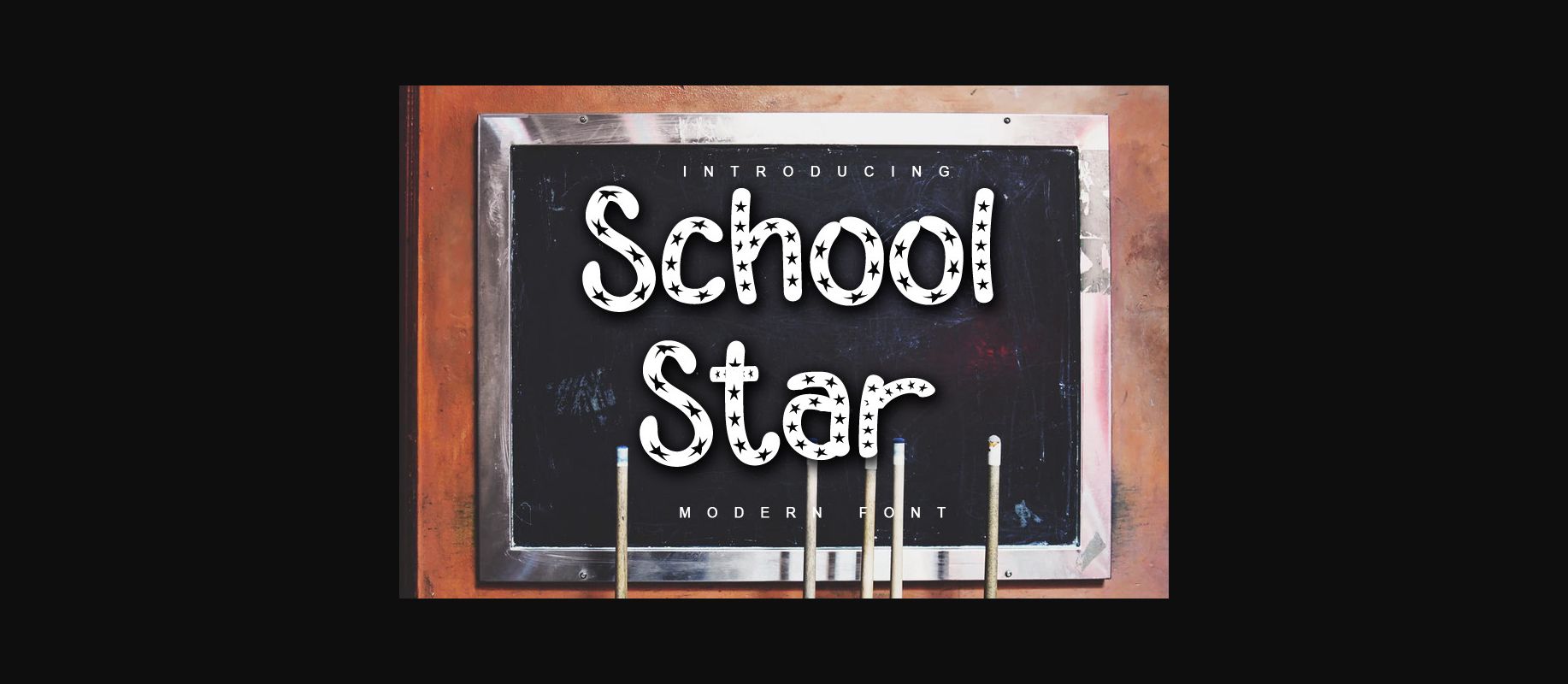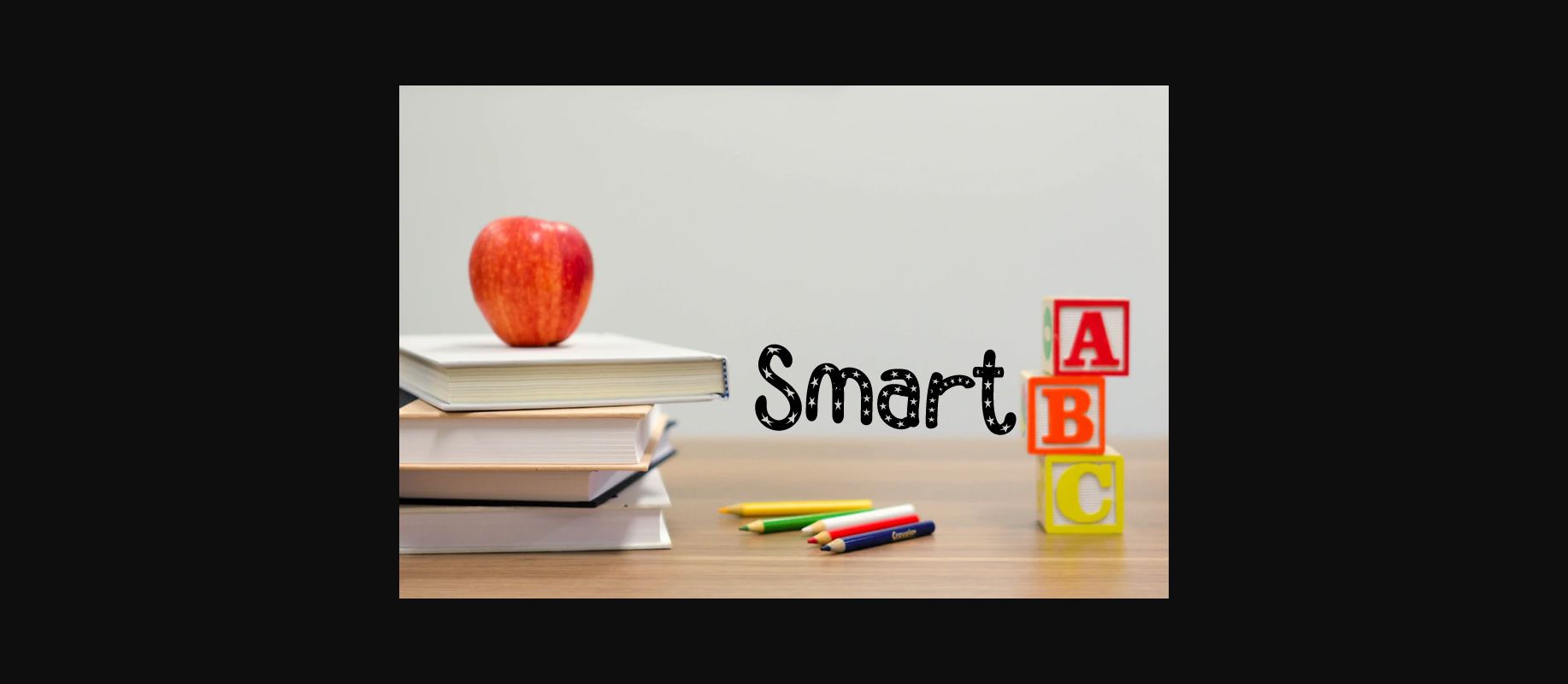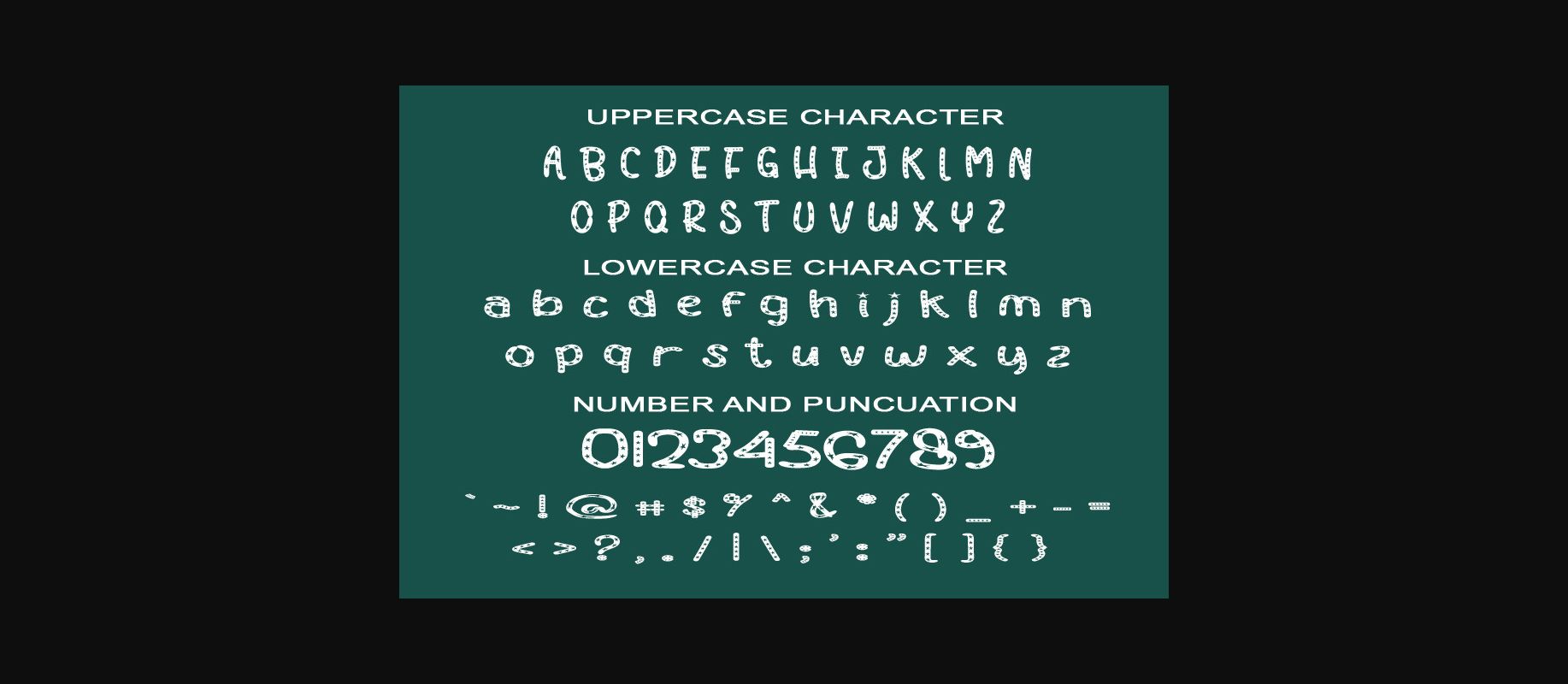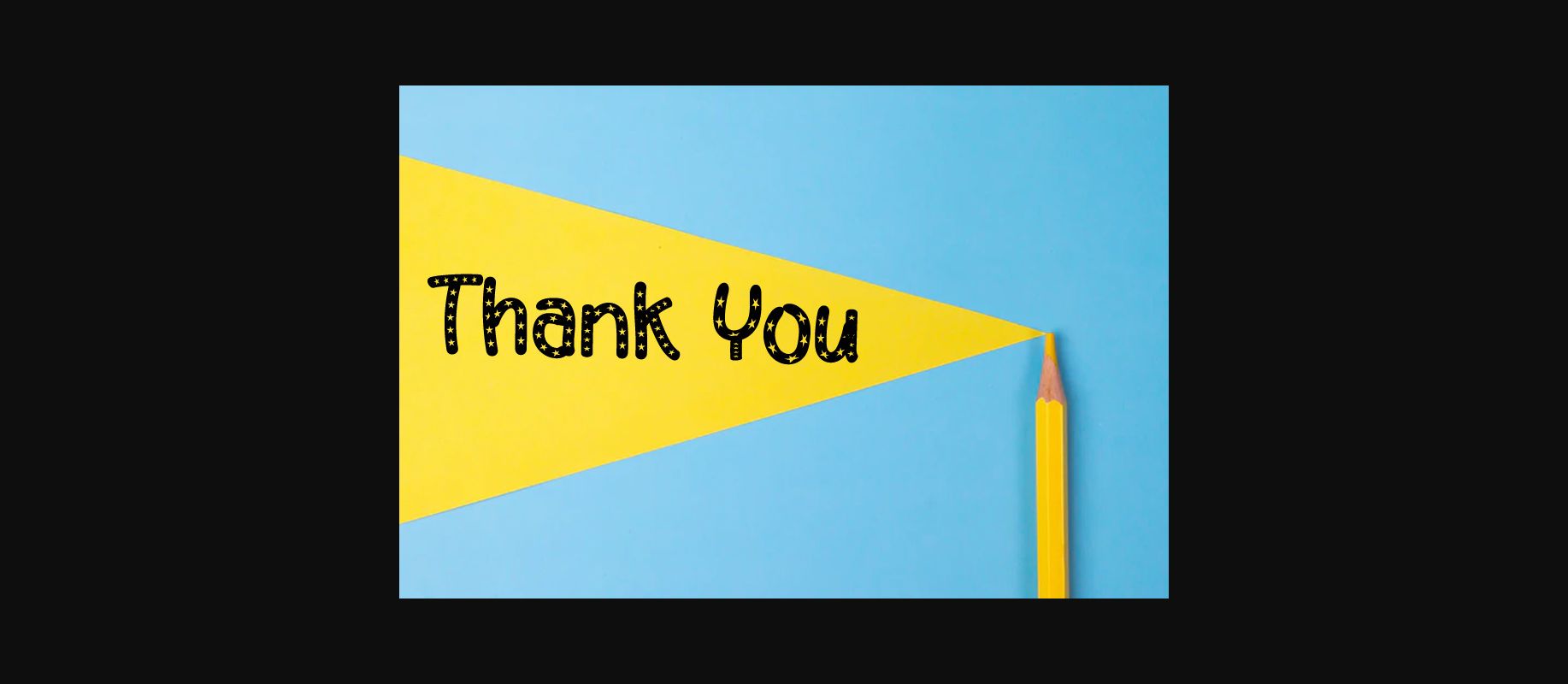
About School Star Font
School Star is a cool decorative font that will stand out every time! Use it for social media banners, business cards, back-to-school supplies, books, movies, games, and many other crafty ideas!